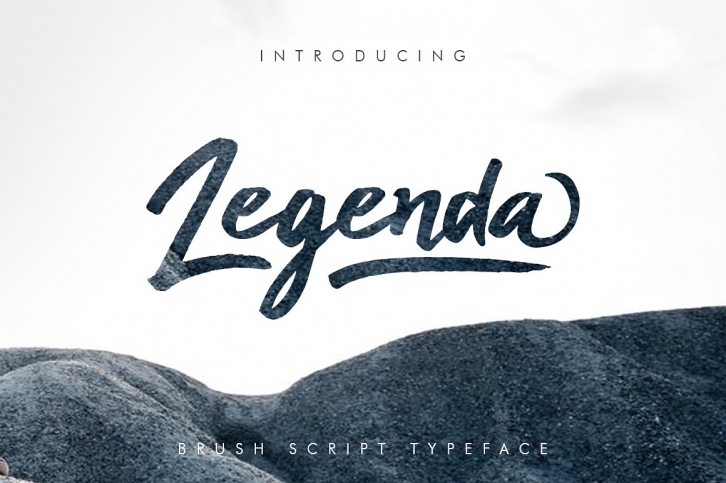
Legenda Brush is a trendy and unique font with an authentic style. It was designed by khurasan and it's a great choice for creative people who need such a font. It was released on August 6, 2017 and the file size is 20.73 MB. Legenda Brush will add an organic vibe to any design idea!